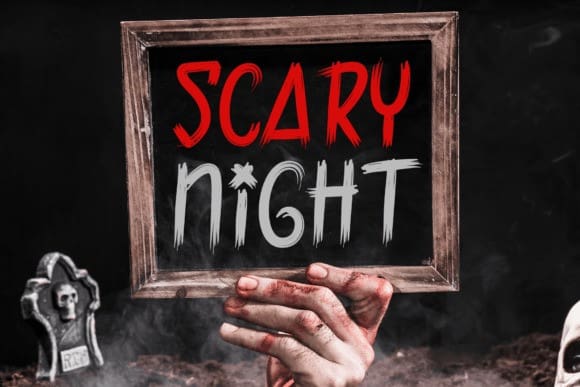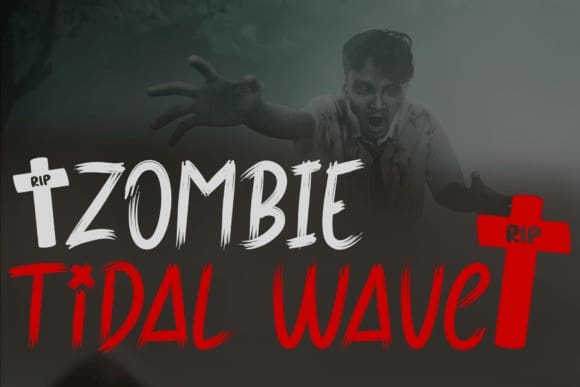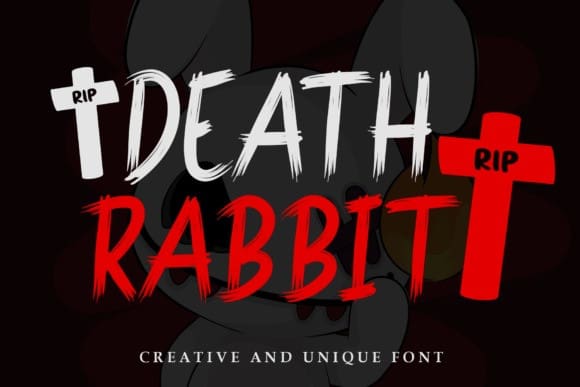
Death Rabbit Font
Death Rabbit Font, a chilling script font that embraces the macabre essence of Halloween. With its twisted strokes and haunting curves, this font evokes a sense of darkness and whimsical terror. Perfect for horror-inspired designs, gothic invitations, and eerie projects, DeathRabbit Font adds an eerie touch to your creations.